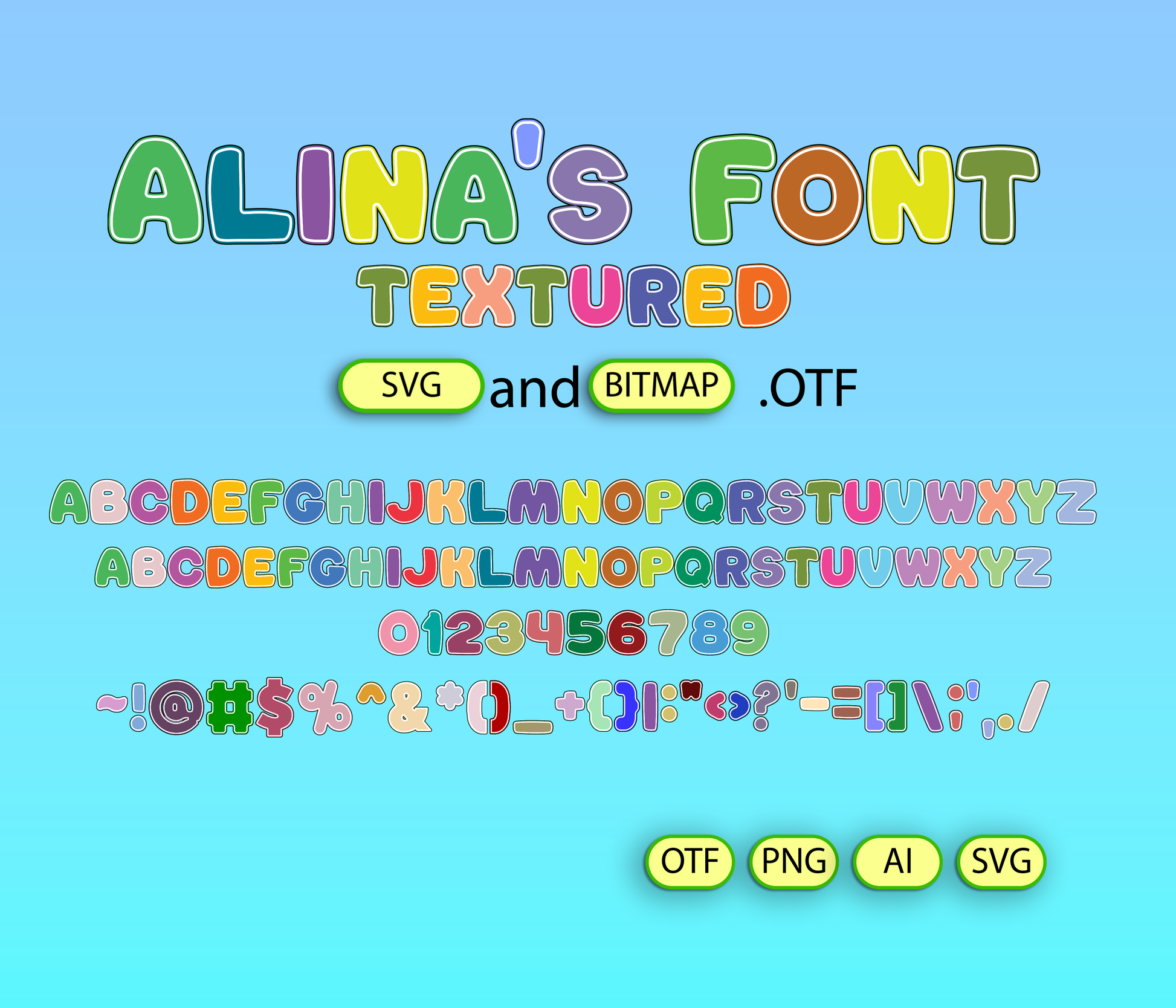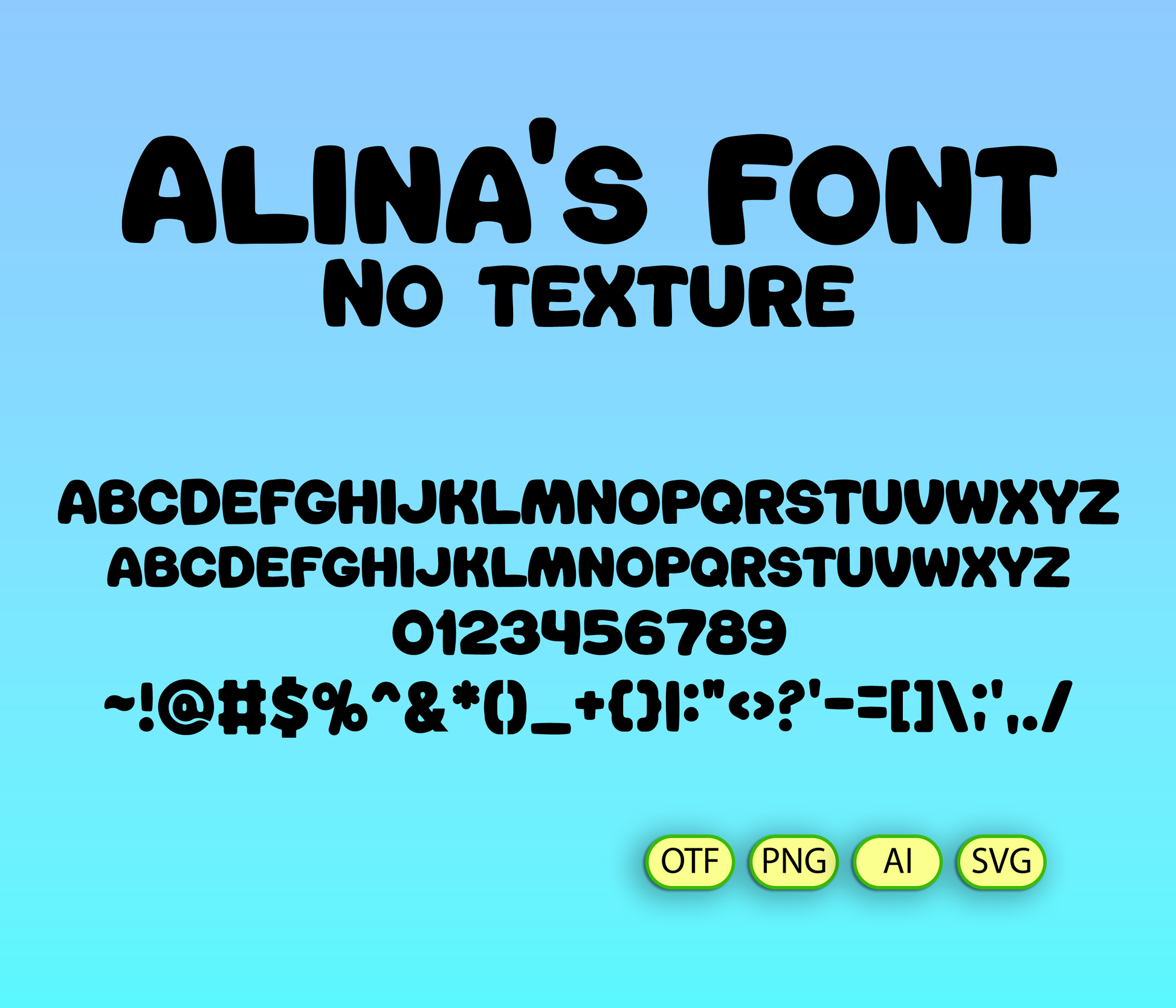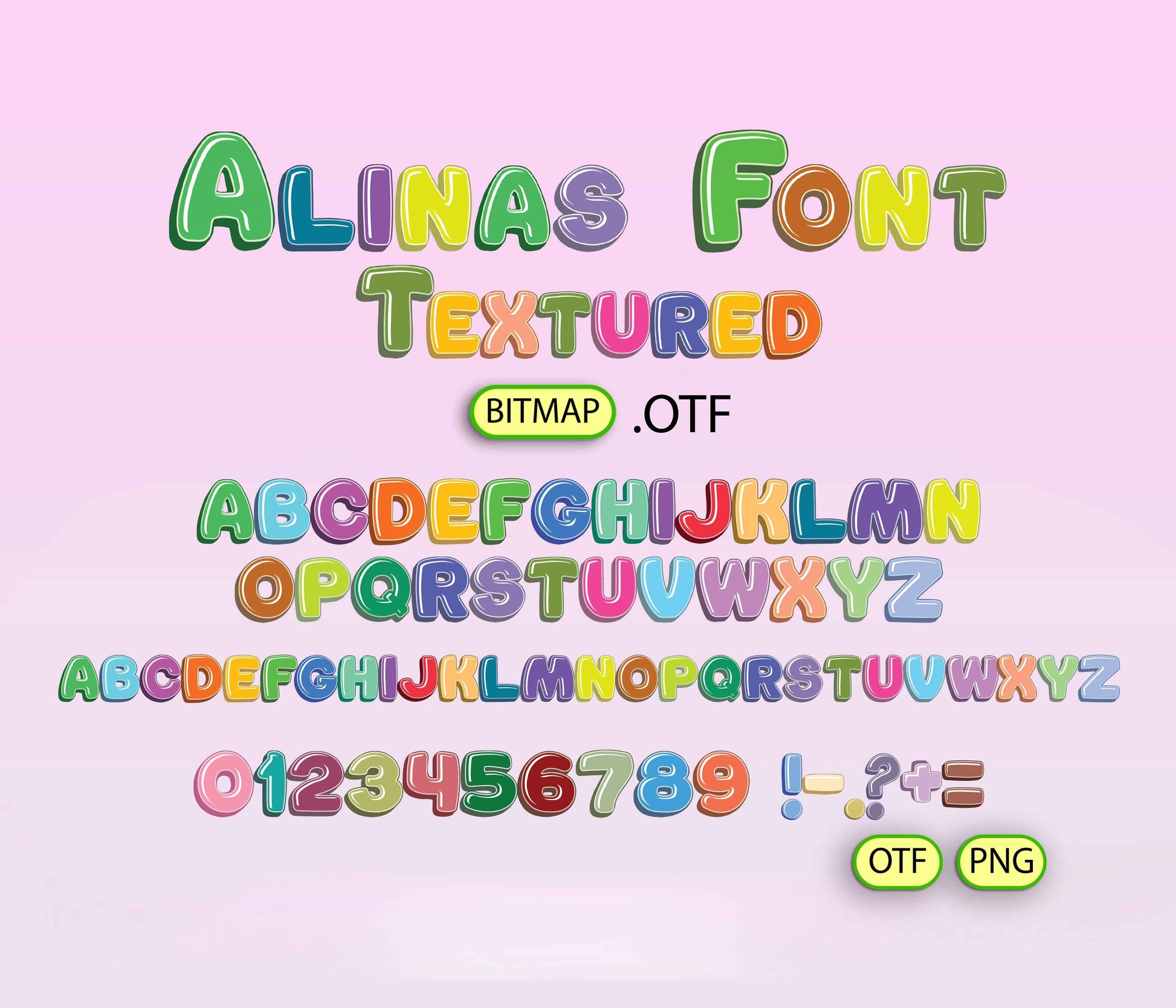
Candy Gummy Font Textured
Candy Textured Font:Â The Sweet Appeal of Gummy
Indulge in the playful and delightful essence of our Gummy font, a typeface that captures the fun and whimsical nature of gummy candies. This font is inspired by the soft, chewy, and colorful characteristics of gummy treats that are a favorite among both children and adults. Each character in the Gummy font is designed to evoke the joy and simplicity of these sweet confections, making it perfect for projects that aim to bring a touch of sweetness and playful charm.
What Font is Candy Font?
Think of a typeface that mimics the soft, rounded, and pliable texture of gummy candies. Our Gummy font is created to reflect the fun and inviting look of these treats, with a focus on rounded, bubbly letterforms that are reminiscent of gummy shapes. It includes an extensive character set, featuring alphabets, numbers, and special symbols, providing a versatile toolkit for a wide range of design projects, from children's products and branding to creative and festive themes.
What Can You Do With Candy Font?
The Gummy font is versatile and ideal for various creative and engaging applications:
- Children's Product Branding: Perfect for branding and packaging design in the children's food and toy industry.
- Themed Event Invitations: Create playful invitations for children's parties, candy-themed events, or dessert buffets.
- Educational Materials: Use the font to make learning materials more engaging and fun for young students.
- Digital Content and Social Media: Add a sweet touch to websites, apps, and social media posts aimed at families or children.
- Bakery and Confectionery Marketing: Ideal for marketing materials for bakeries, candy stores, and confectioneries.
- Greeting Cards and Stationery: Design cheerful stationery, greeting cards, or gift tags with a whimsical theme.
- Interior Decor: Use for wall art or signage in children's spaces, playrooms, or dessert cafes.
- Creative Projects and DIY: Perfect for scrapbooking, crafting, and artistic projects with a playful or sweet theme.
- Apparel and Merchandise Design: Create fun clothing and accessories, especially for children or candy enthusiasts.
- Event Signage and Decorations: Develop eye-catching decorations and signs for festive occasions or food fairs.
Feature Highlights and Bonuses:
- Textured and Non-Textured Variants: Available in both a playful, candy-like style and a clean, non-textured version for diverse design needs.
- Comprehensive Character Set: Offers a wide range of characters for complete design versatility.
The Gummy font is more than just a typeface; it's an embodiment of the fun, joy, and playfulness of gummy candies.